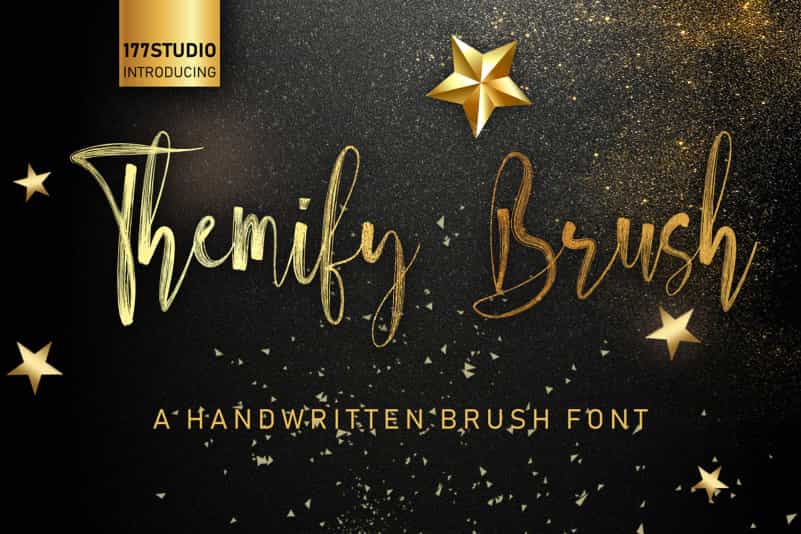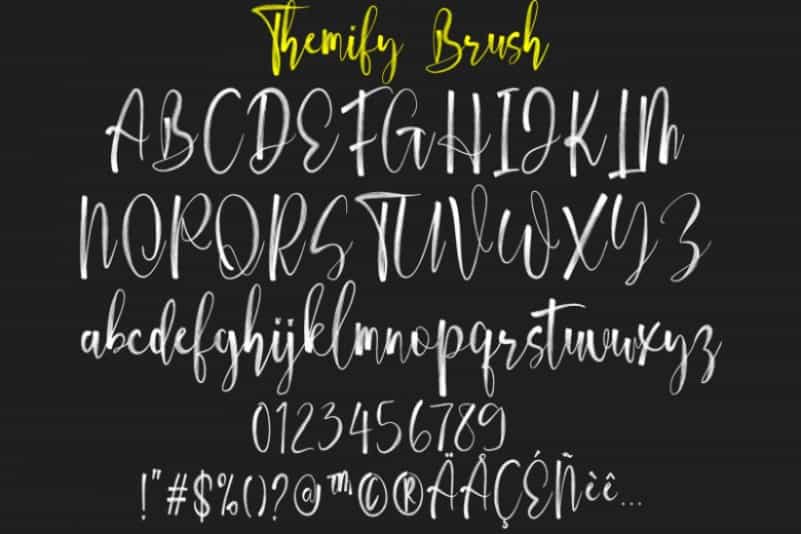
Discover Themify Brush Script Font, part of the Brush Script collection—a versatile and unique font perfect for adding a personal touch to your projects. Download it for free and enjoy crafting designs with style, from invitations to social media posts. This font is available exclusively for personal use, giving you the freedom to create without limits. Unlock your creativity with Themify Brush Script Font today!
Themify Brush Font! A very elegant handwritten brush font that has a distinct touch of the country. With a speedy dry function and powerful impression, it is beneficial for catalogs and Homeware designs or for packing the products, or as a textual content overlay on the image background.